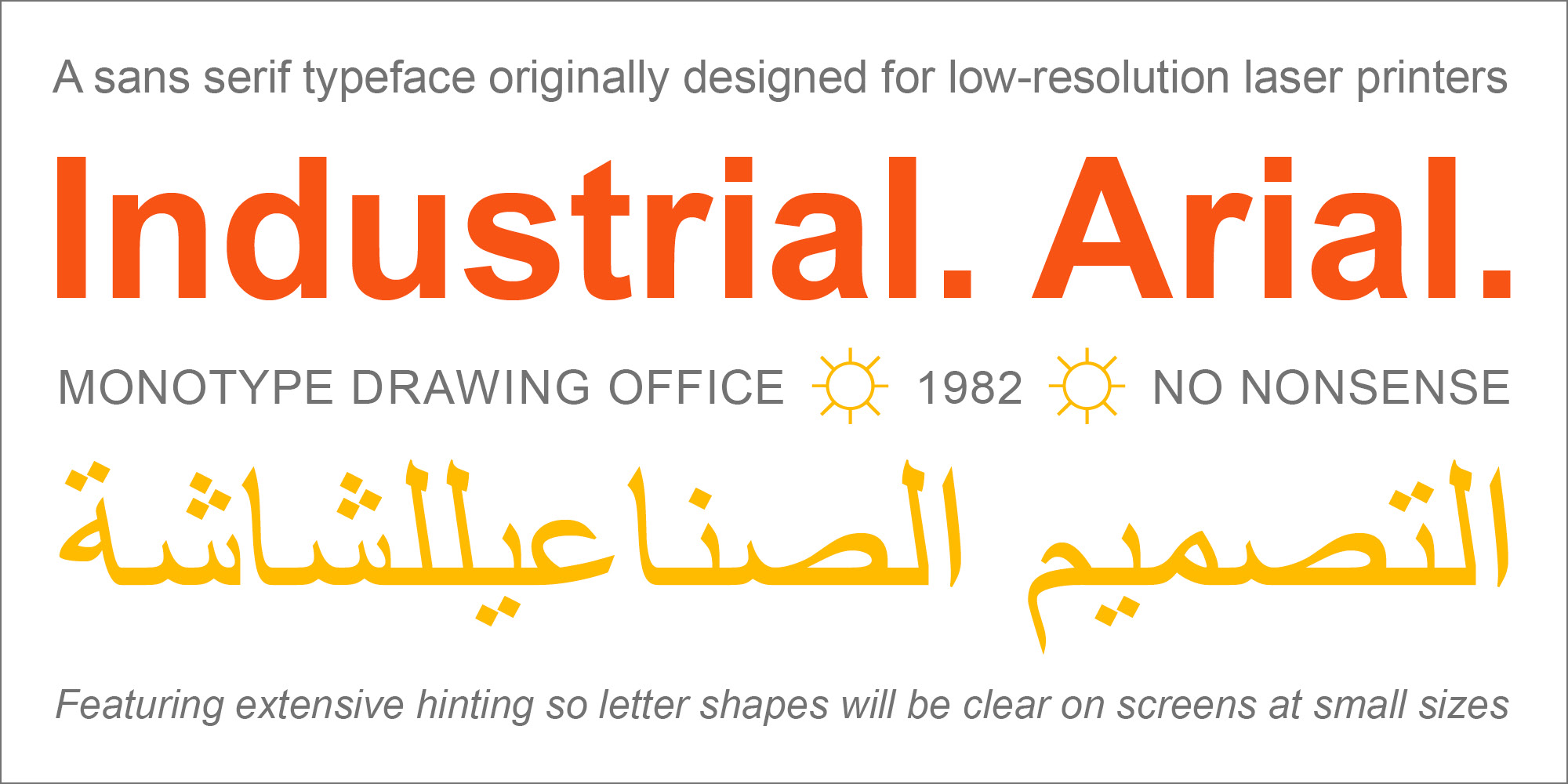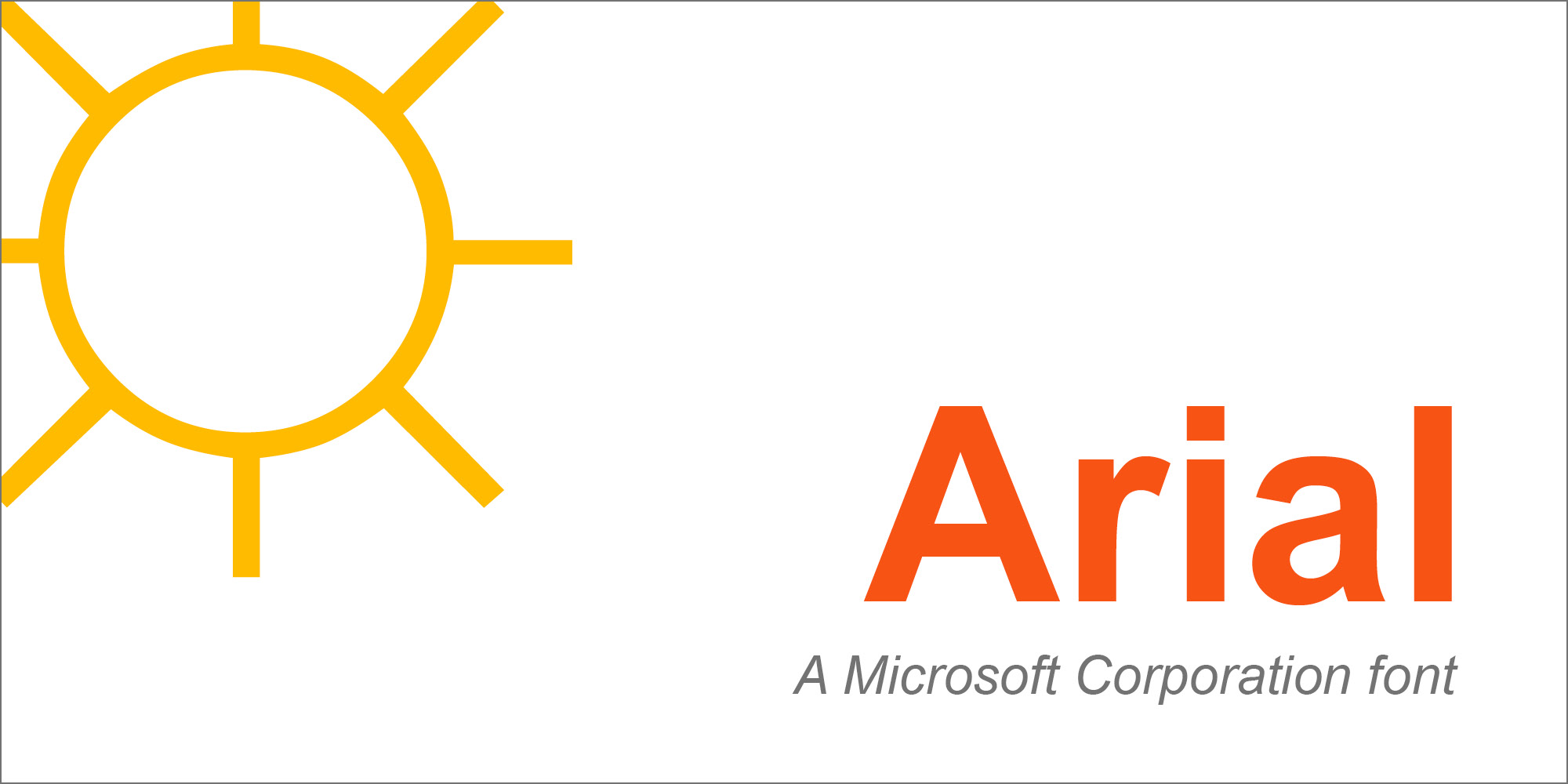
Monotype Drawing Office 1982. A contemporary sans serif design, Arial contains more humanist characteristics than many of its predecessors and as such is more in tune with the mood of the last decades of the twentieth century. The overall treatment of curves is softer and fuller than in most industrial-style sans serif faces. Terminal strokes are cut on the diagonal which helps to give the face a less mechanical appearance. Arial is an extremely versatile family of typefaces which can be used with equal success for text setting in reports, presentations, magazines etc., and for display use in newspapers, advertising and promotions. The original Arial family includes Arial, Arial Narrow (useful for fitting copy into very narrow columns), Arial Black, and Arial Rounded MT Bold.
| Designers | Robin Nicholas, Patricia Saunders |